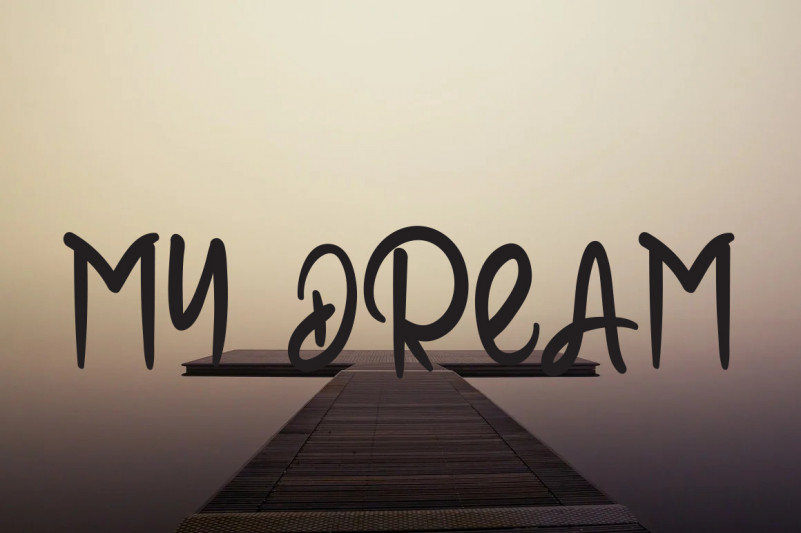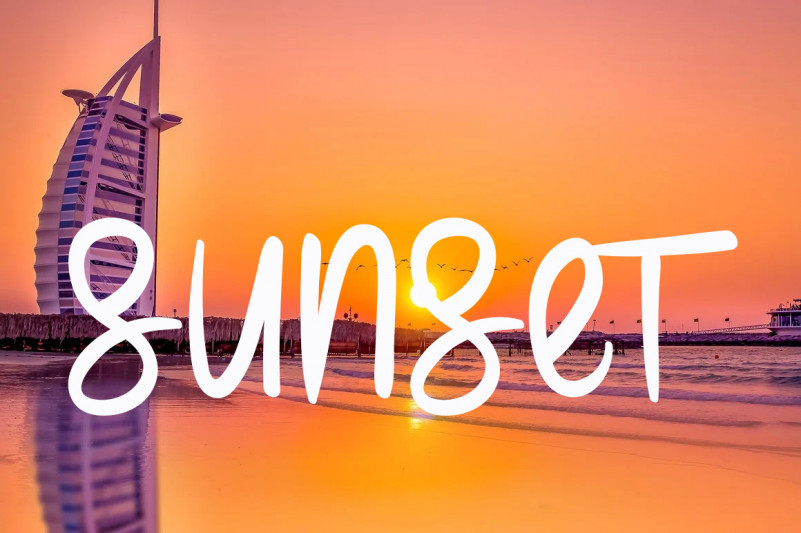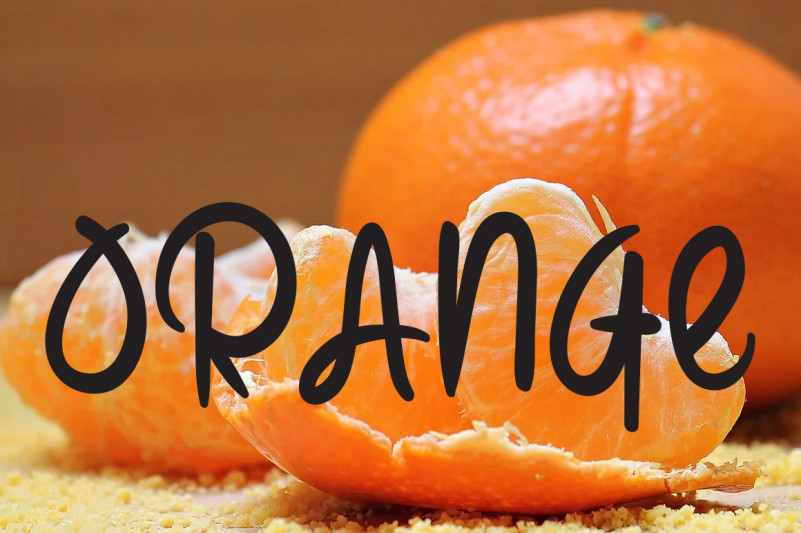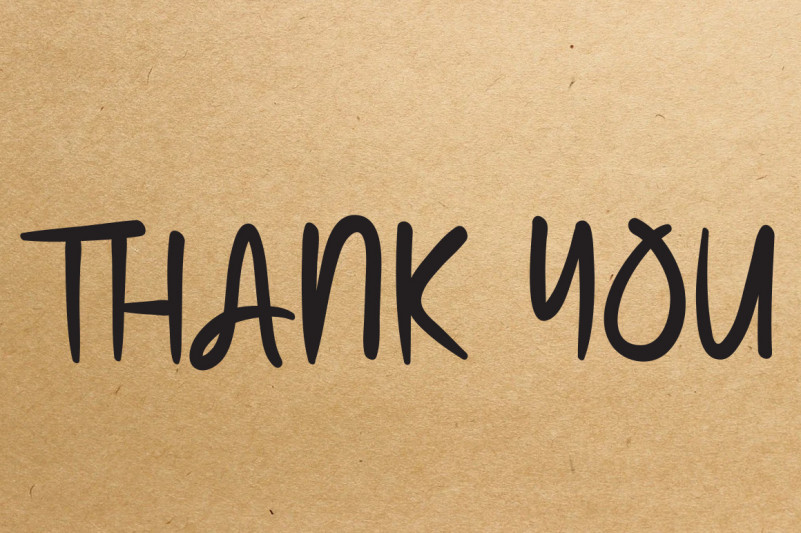
Ocean Script Font
This is a cool and relaxed handwritten font. Add it to each of your party invitation, gathering or pretty much any design that requires a touch of youth and joy.